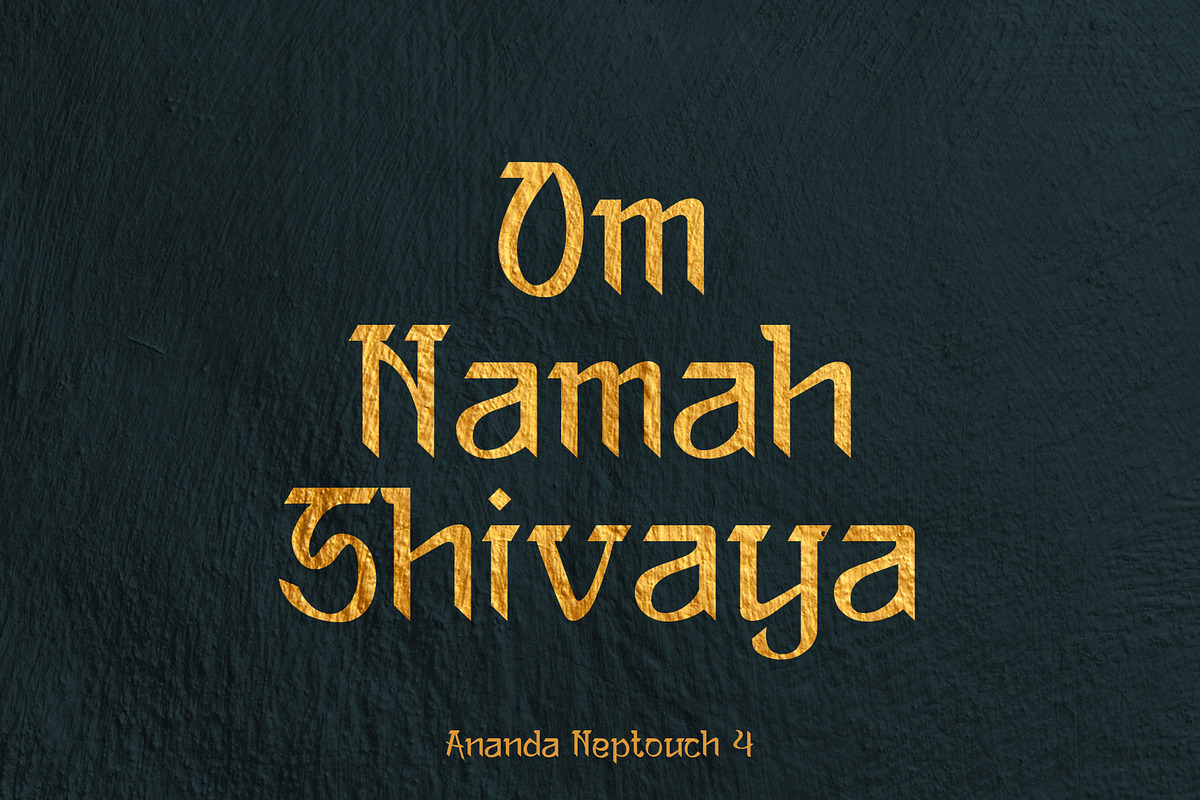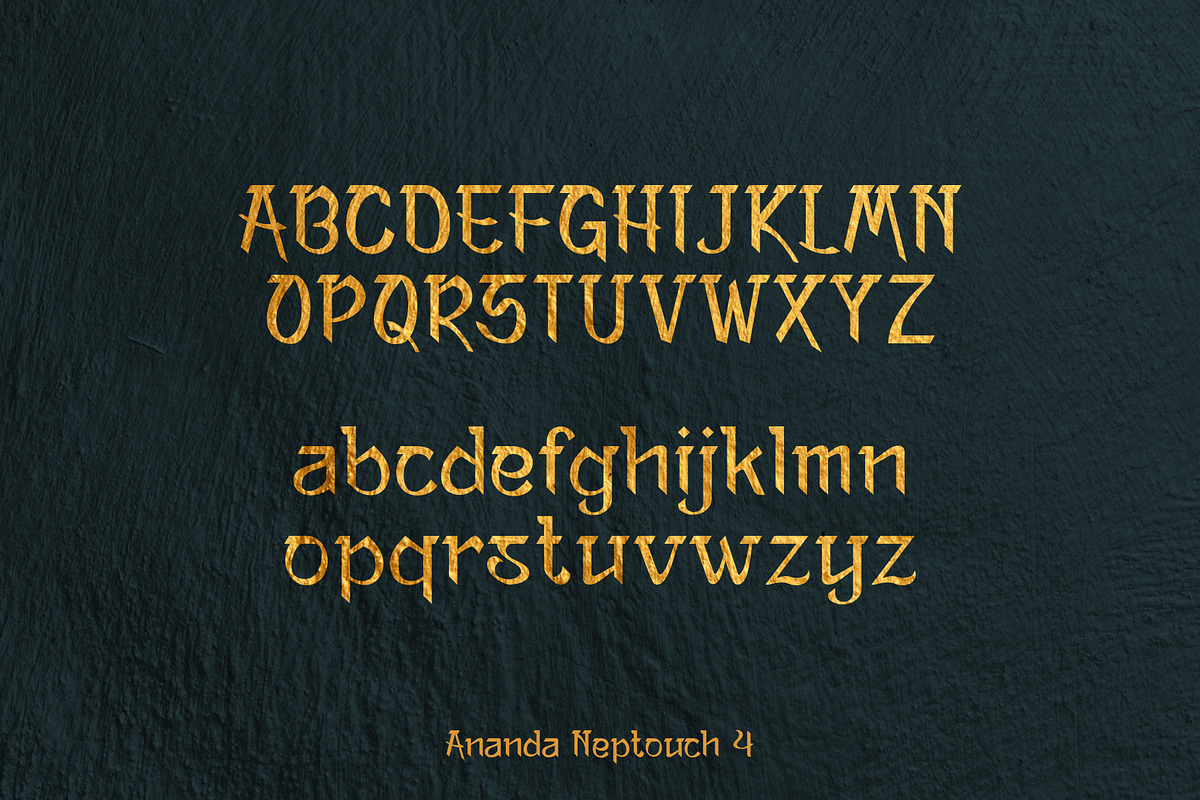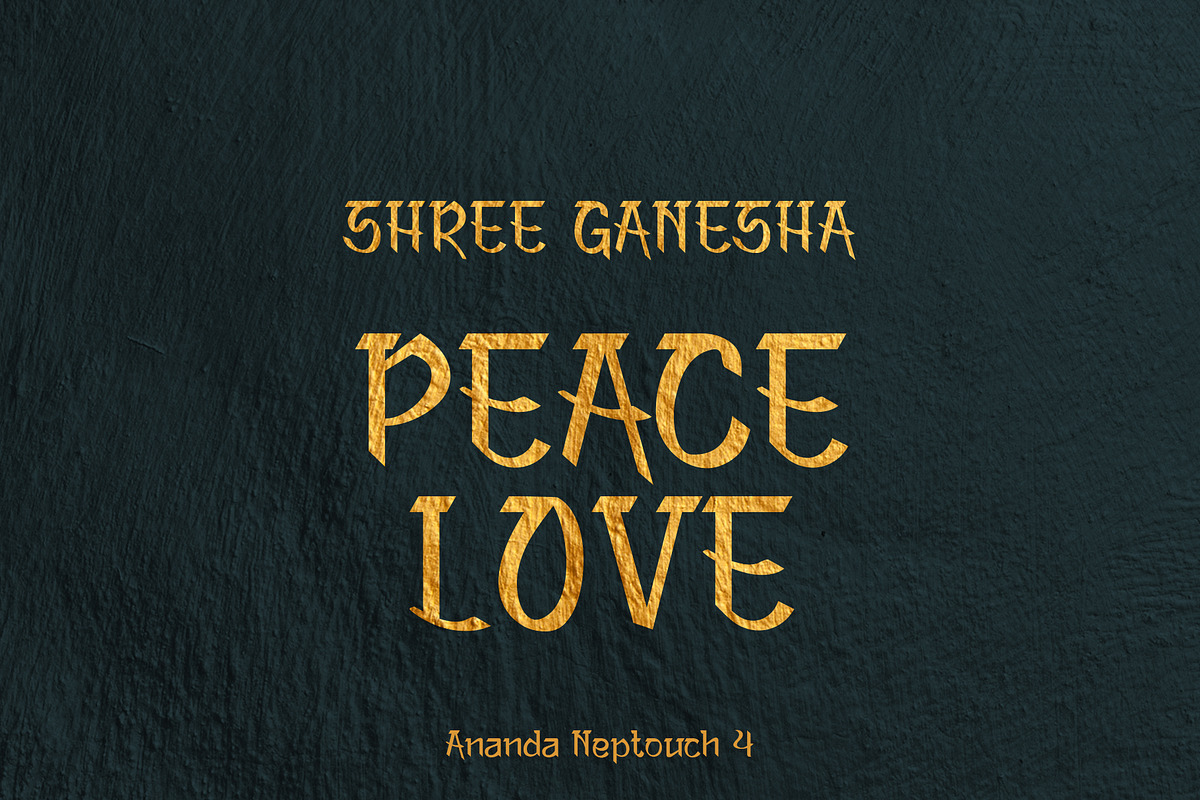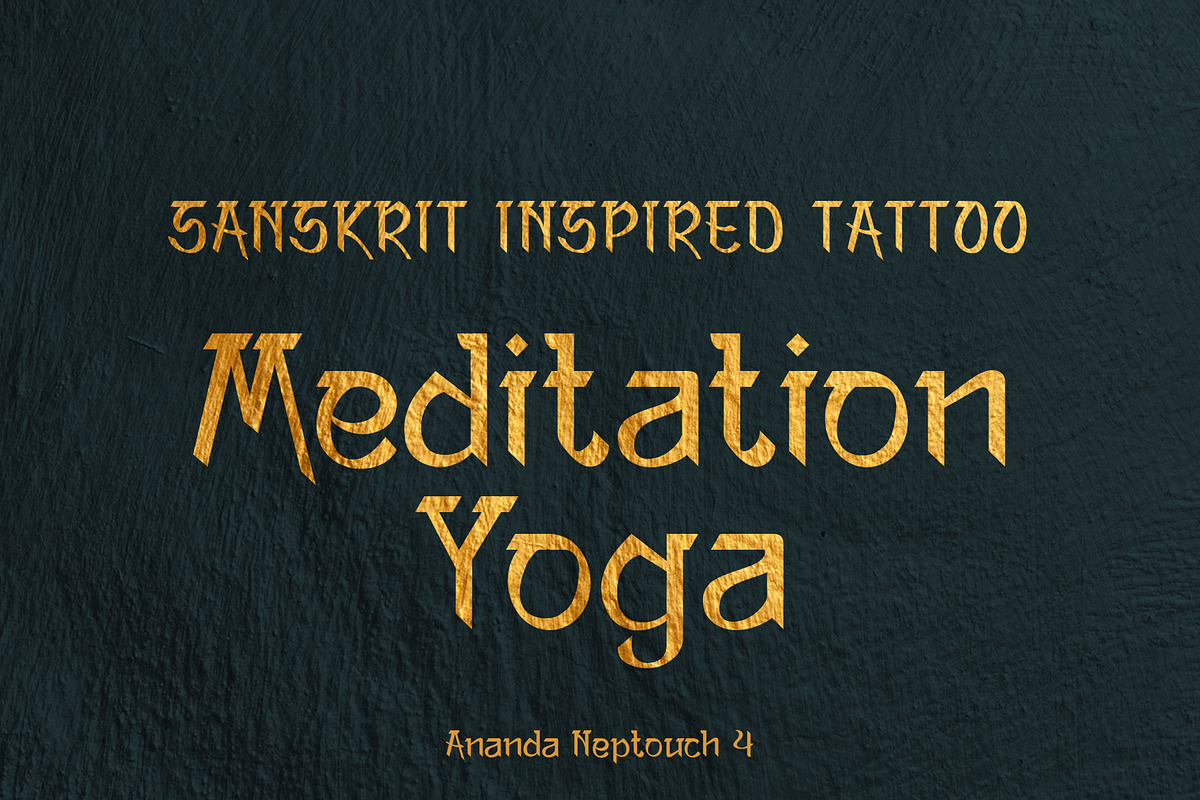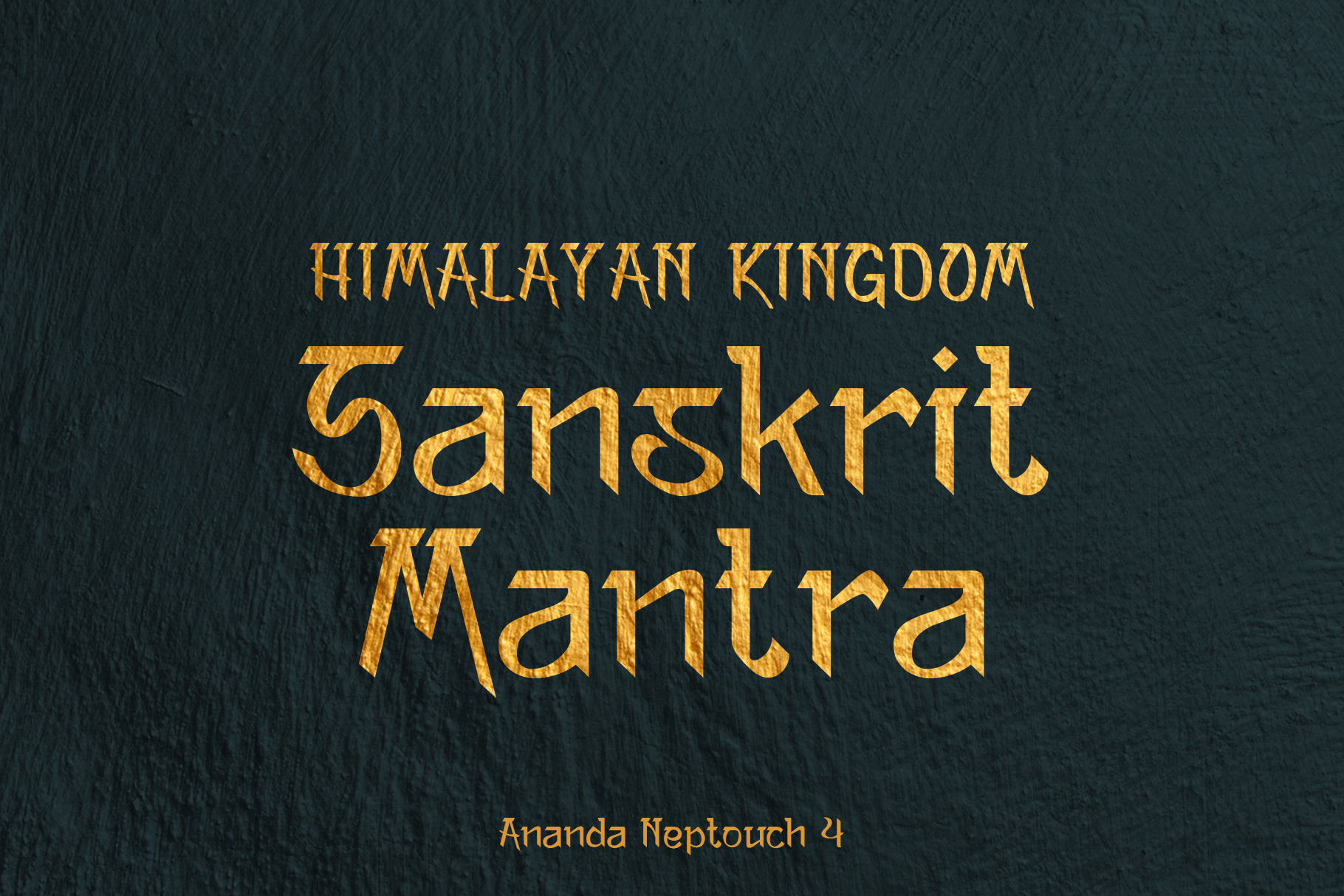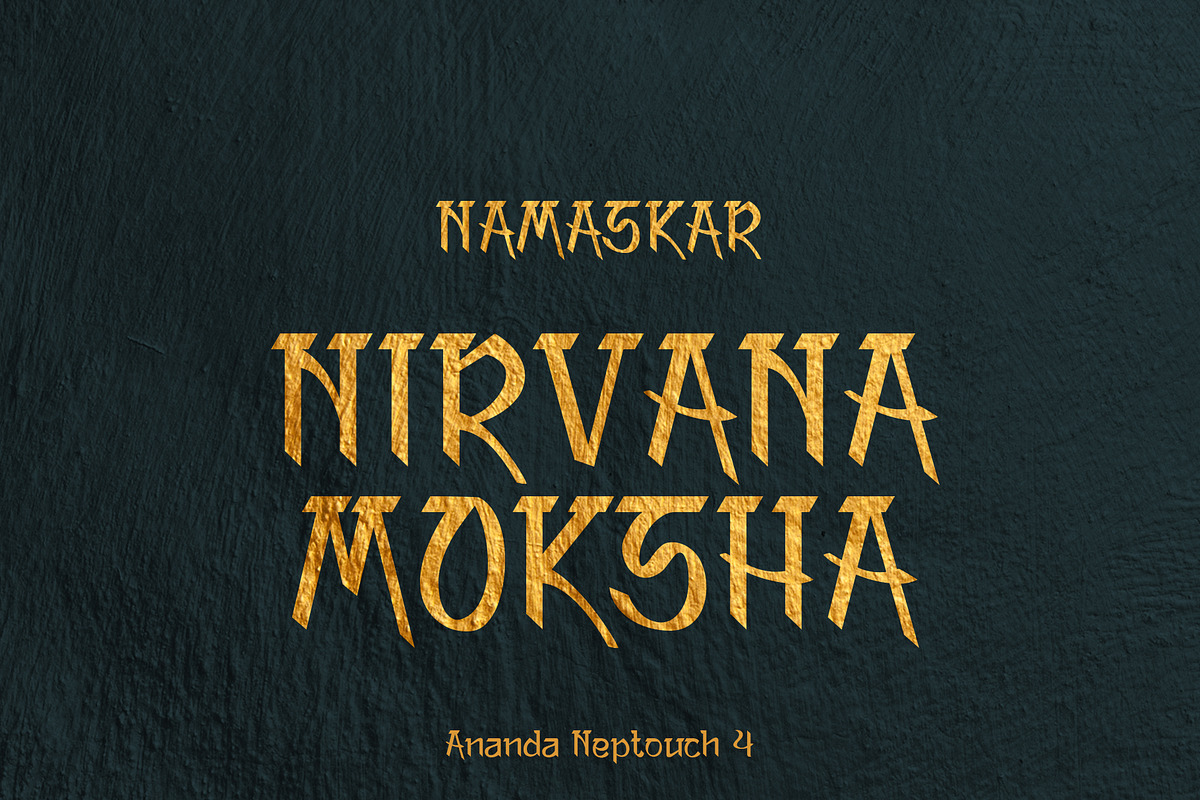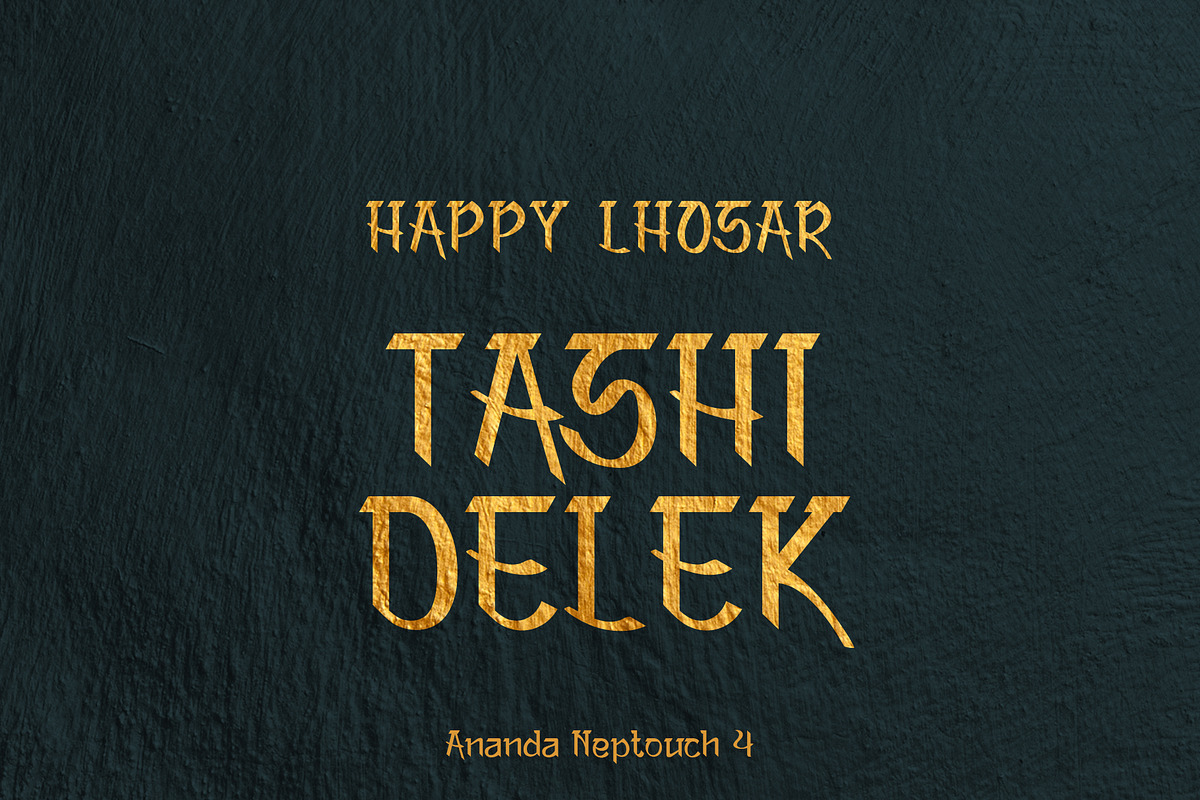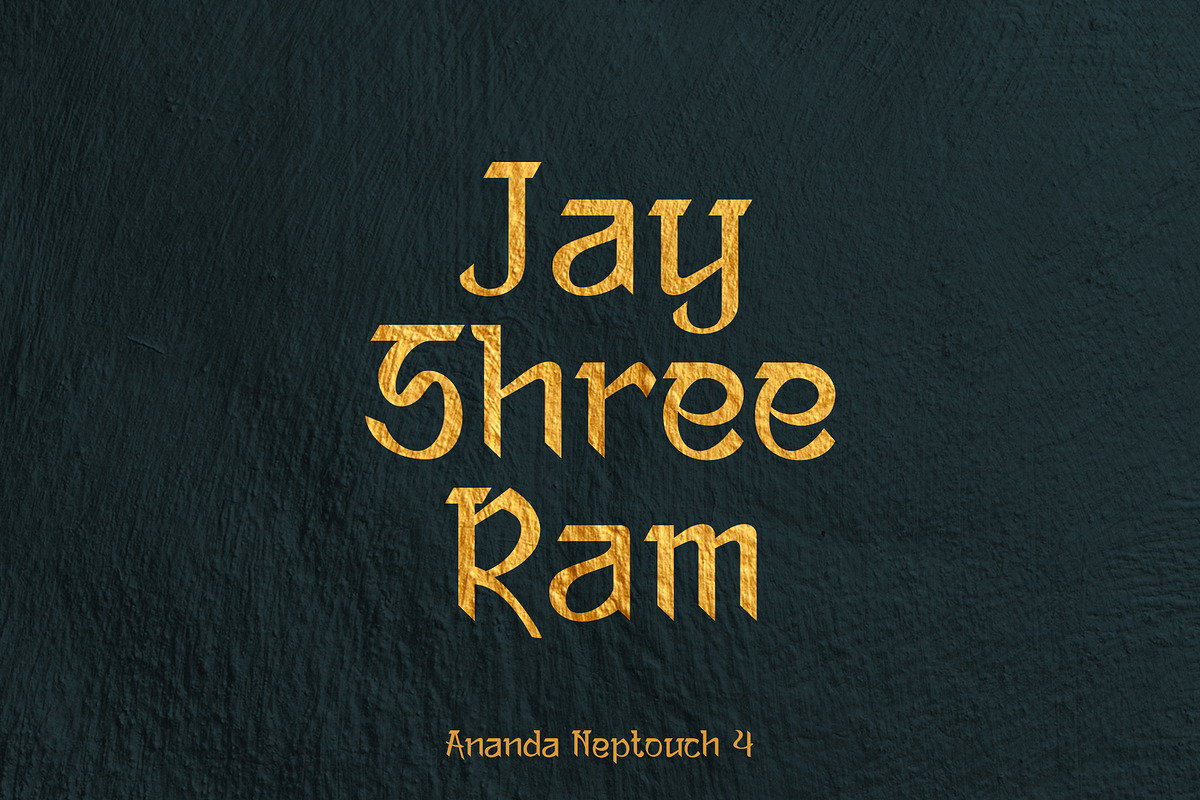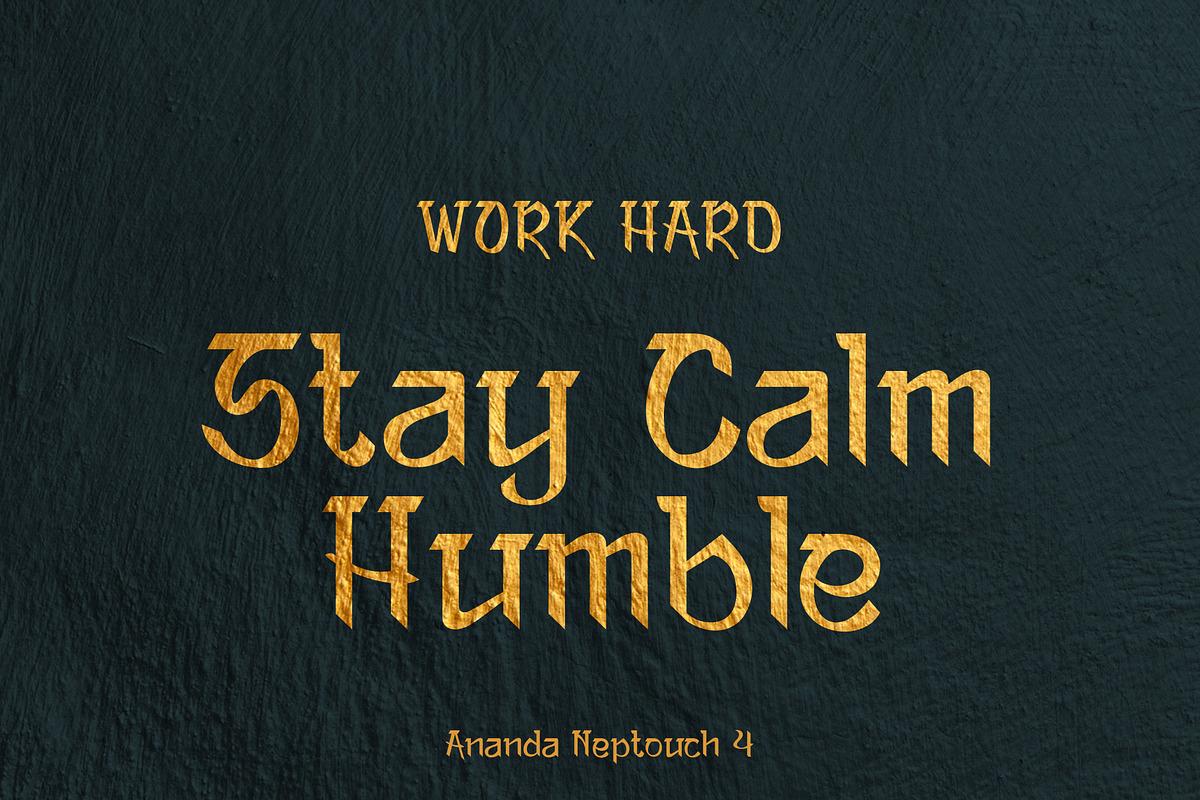
Ananda Neptouch 4 - Font
Ananda Neptouch 4 – A Divine Sanskrit Devanagari-Inspired Font with uppercase and lowercase
Ananda Neptouch 4 is a uniquely crafted Devanagari-inspired font that blends the elegance of Sanskrit calligraphy with a divine and artistic touch. Rooted in traditional calligraphic strokes, this font carries a sacred and graceful aura, making it perfect for spiritual, cultural, and artistic projects. Whether you're designing for scriptures, invitations, branding, or creative typography, Ananda Namaste brings a timeless charm with its flowing curves and intricate details. Elevate your designs with this soulful and distinctive font.
👉 Perfect for: Sanskrit texts, devotional designs, branding, book covers, yoga, meditation and more. 📜 Features: Authentic calligraphic strokes, a divine aesthetic, and unique character styling.
I have been looking for an inspired font that has good capitals, is well-kerned, and flows really well. Most fonts look Sanskrit-inspired, and aren't quite as versatile and legible as I need them to be, so this is perfect. It conveys a region and style, without it feeling "appropriated" or like a westerner's caricature of a written language. I'm glad to have found this creator.